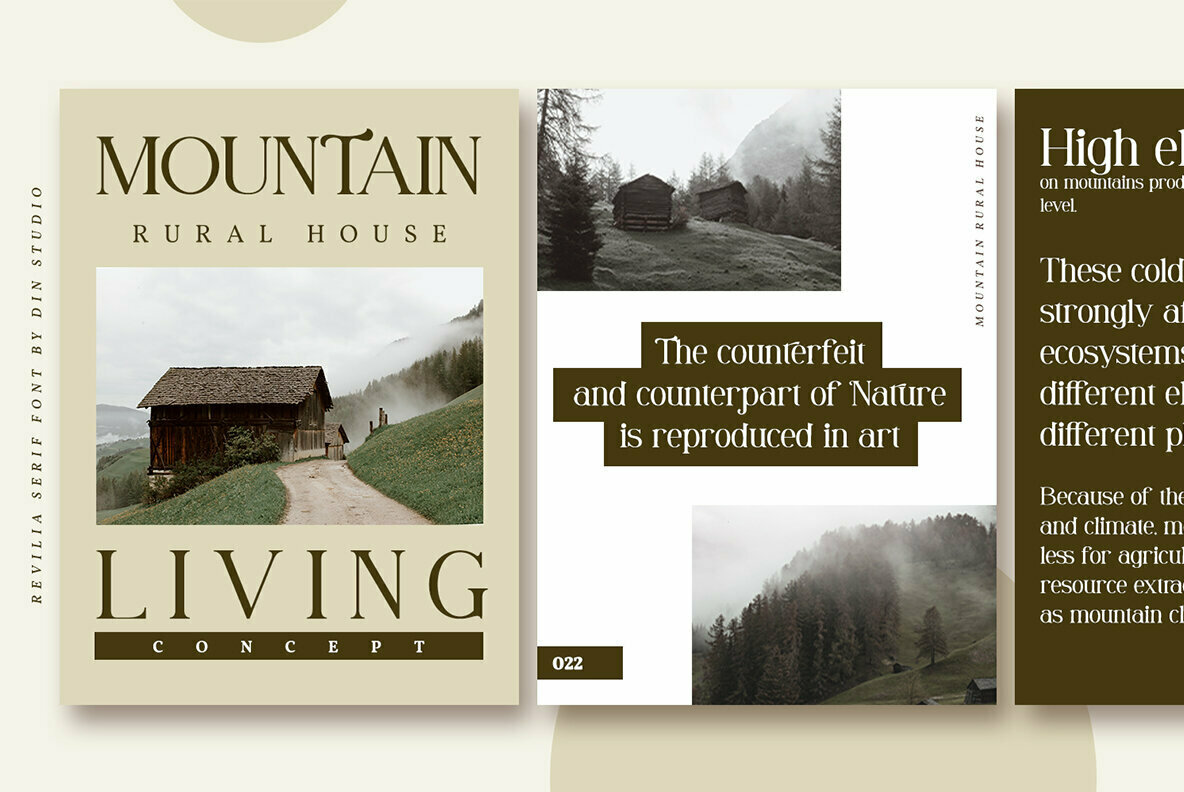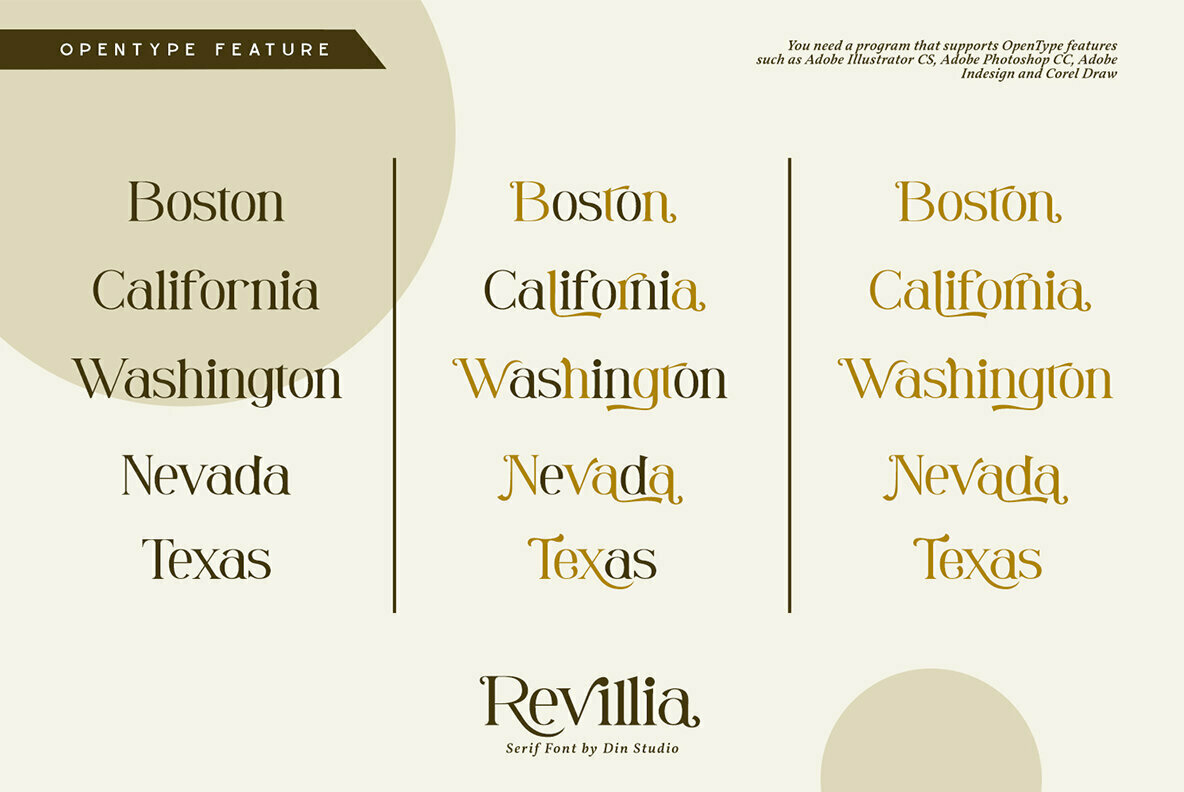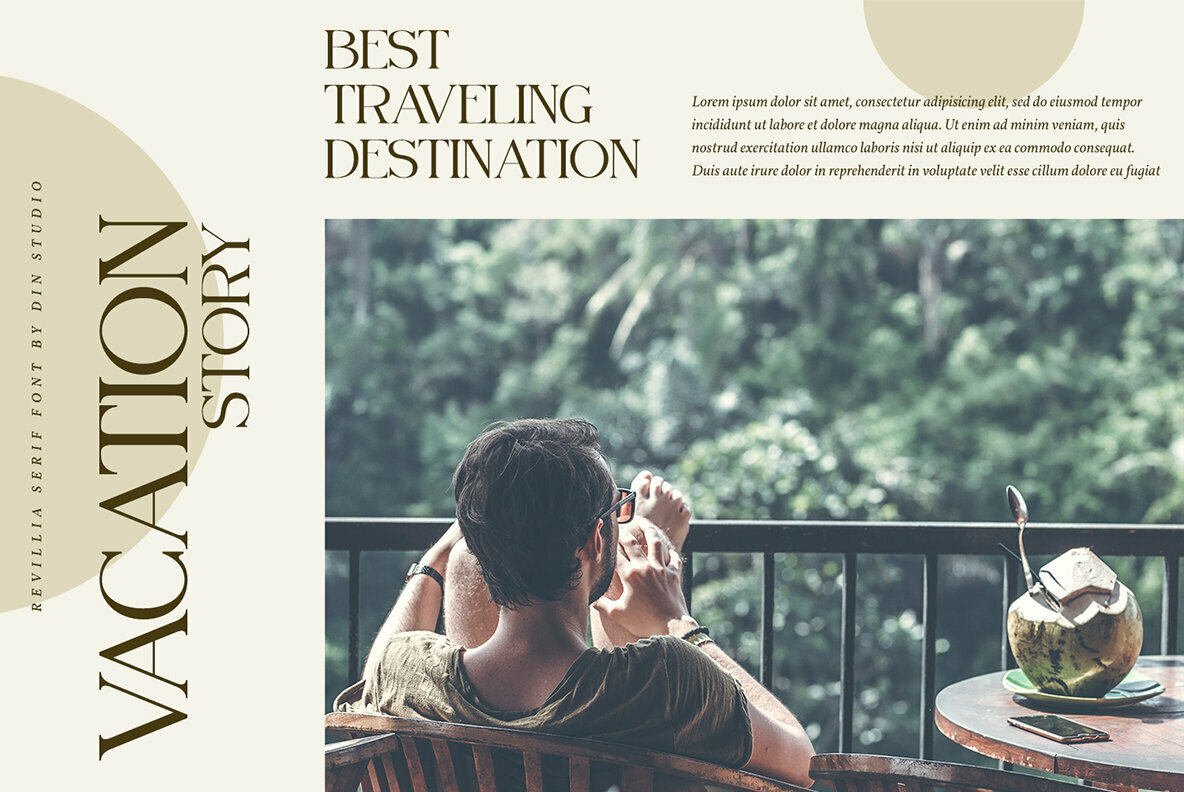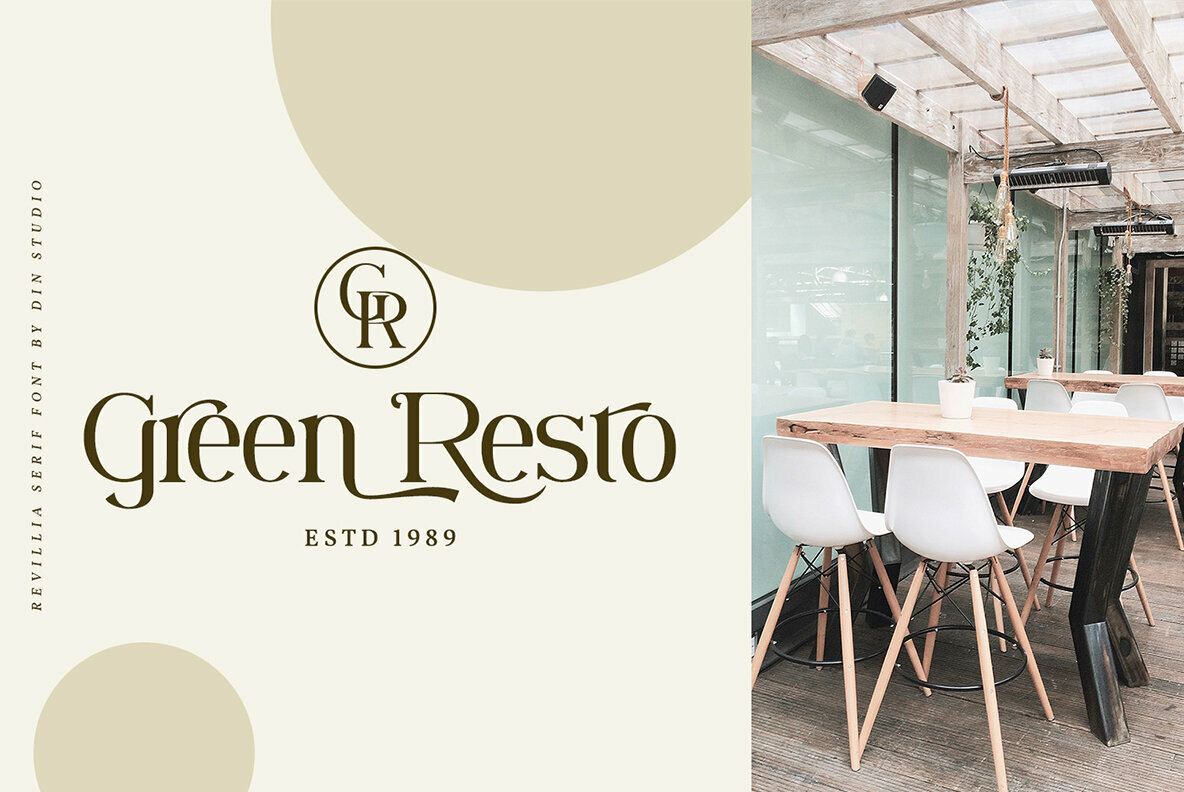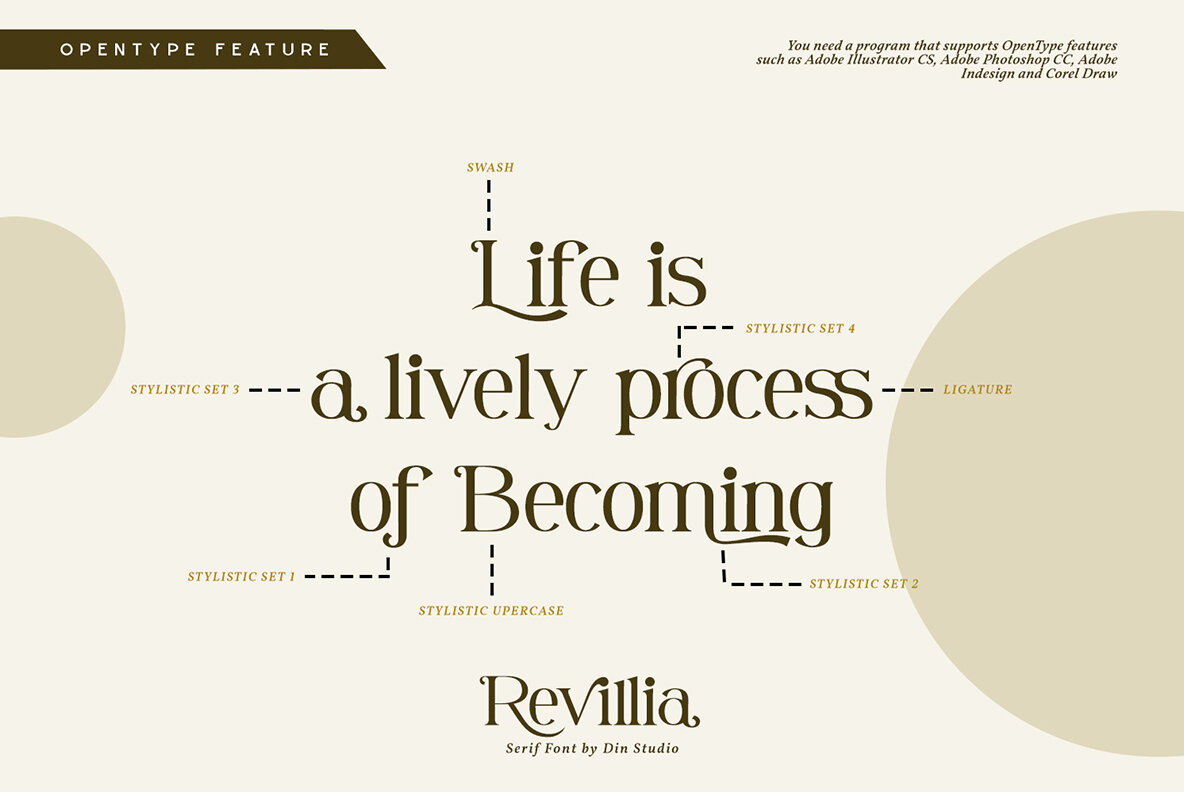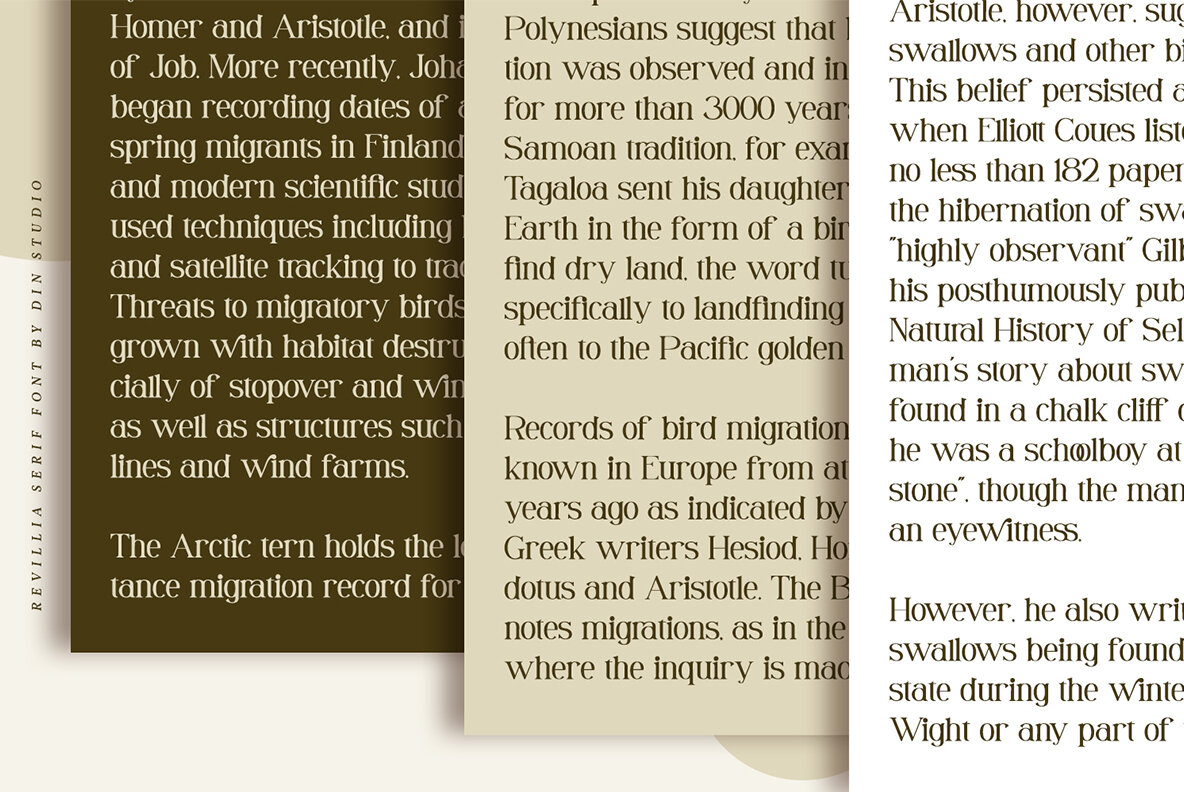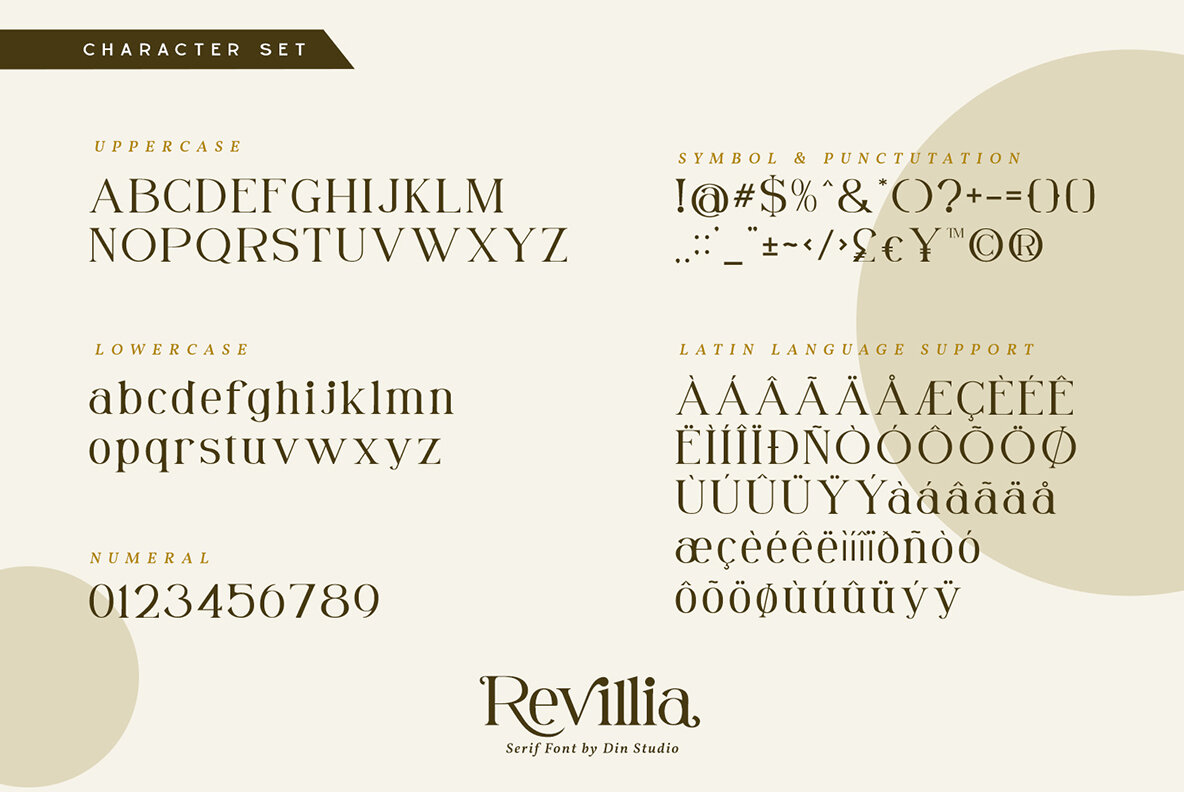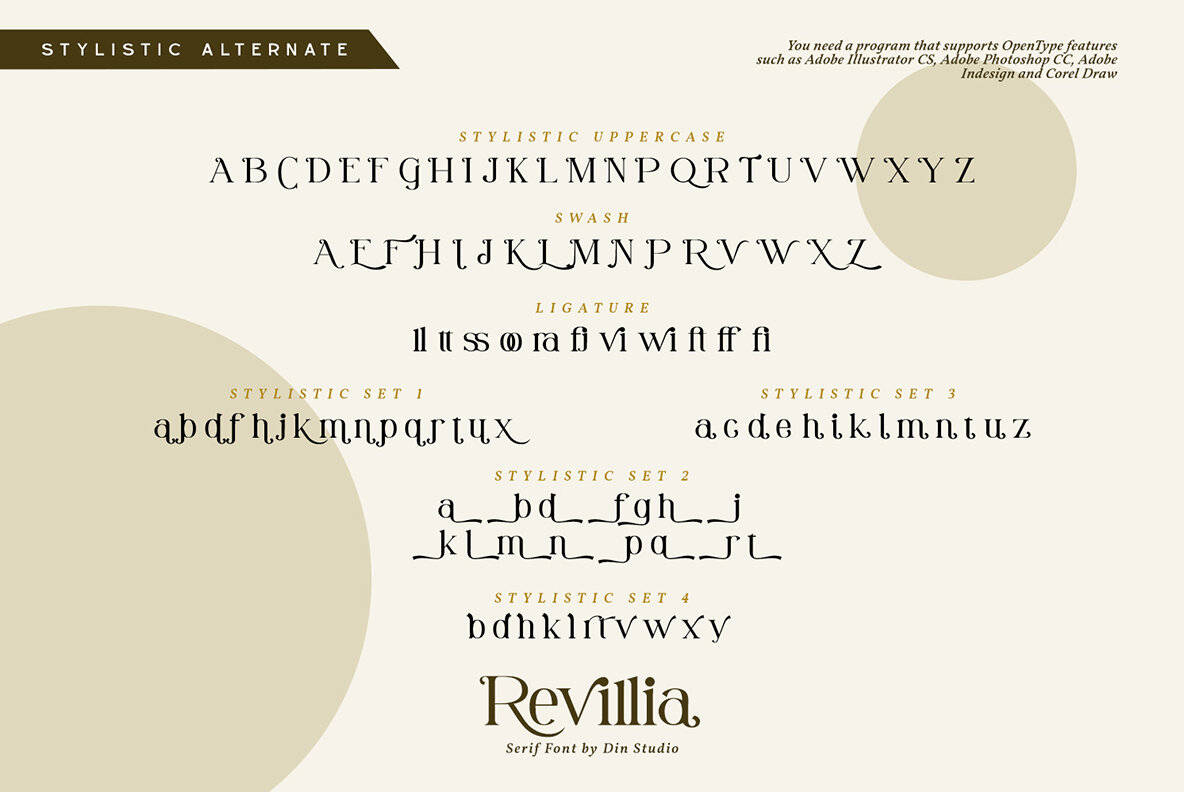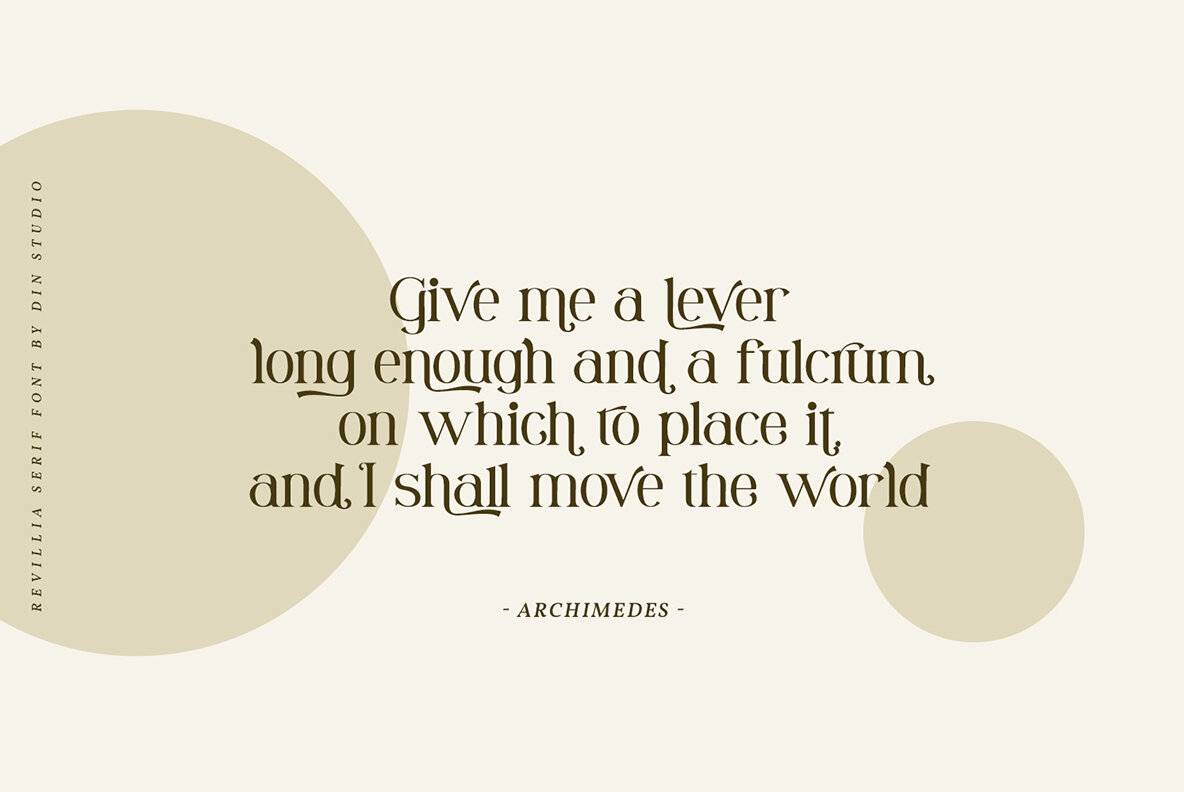
Revillia Font
Revillia
Revillia exudes a charming blend of casual elegance, epitomized in a classic serif design. Tailored to suit diverse professional branding projects, it gracefully lends itself to various applications—from promotional print materials to memorable wedding invitations and resonant quotations. Each letter in the Revillia set carries a distinctive aesthetic, marked by a graceful and unique touch, ideal for those seeking to infuse their work with nuanced sophistication.Revillia: Casual Serif for Elegant Branding